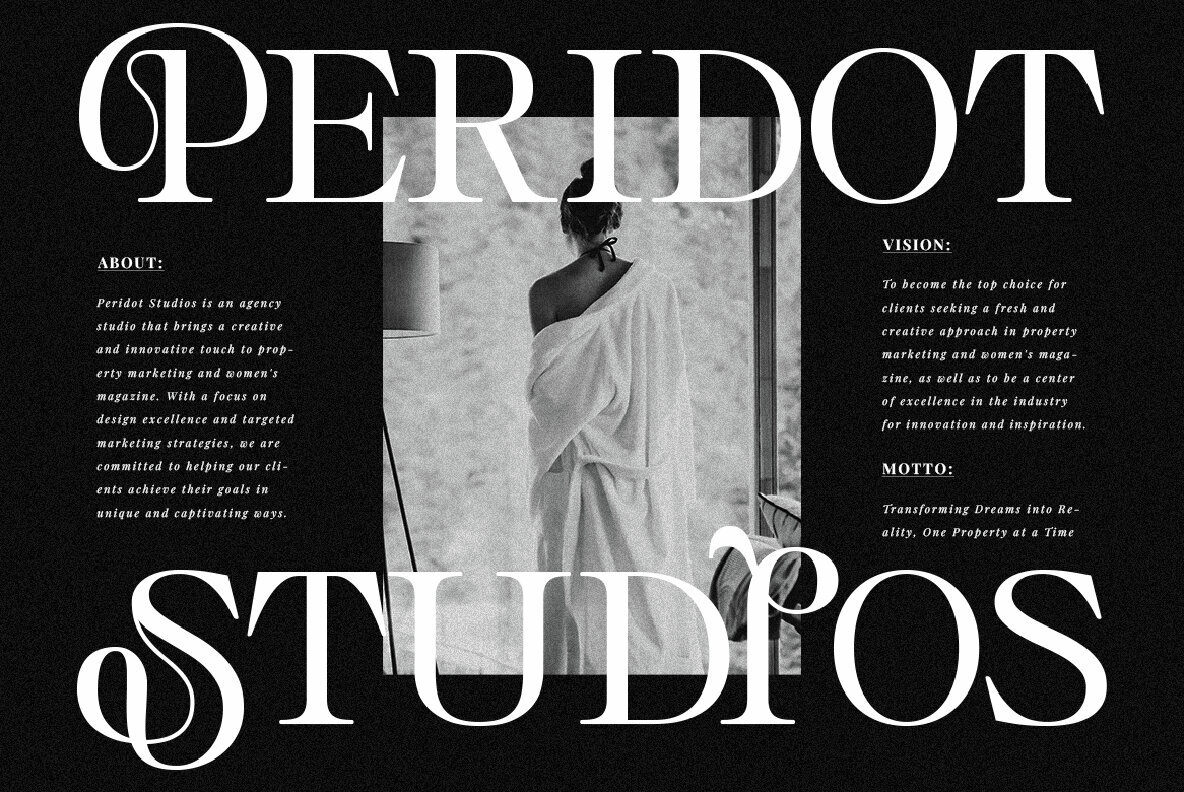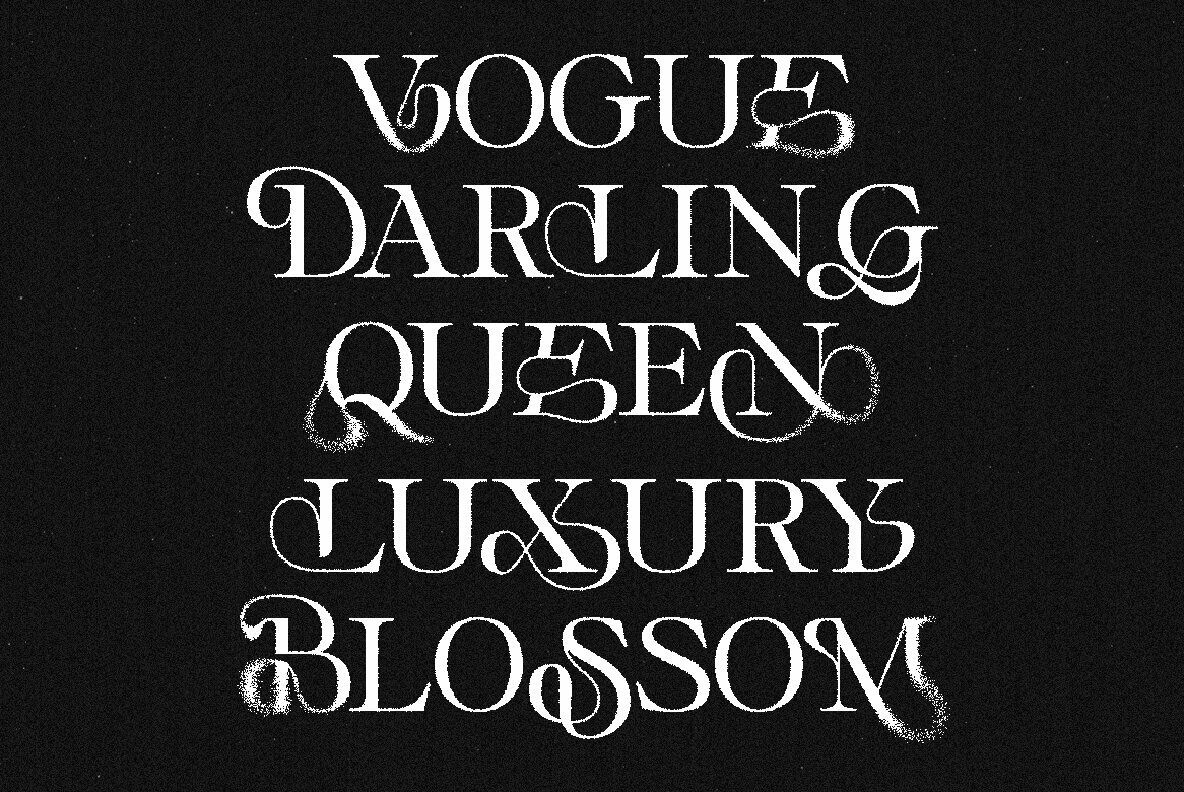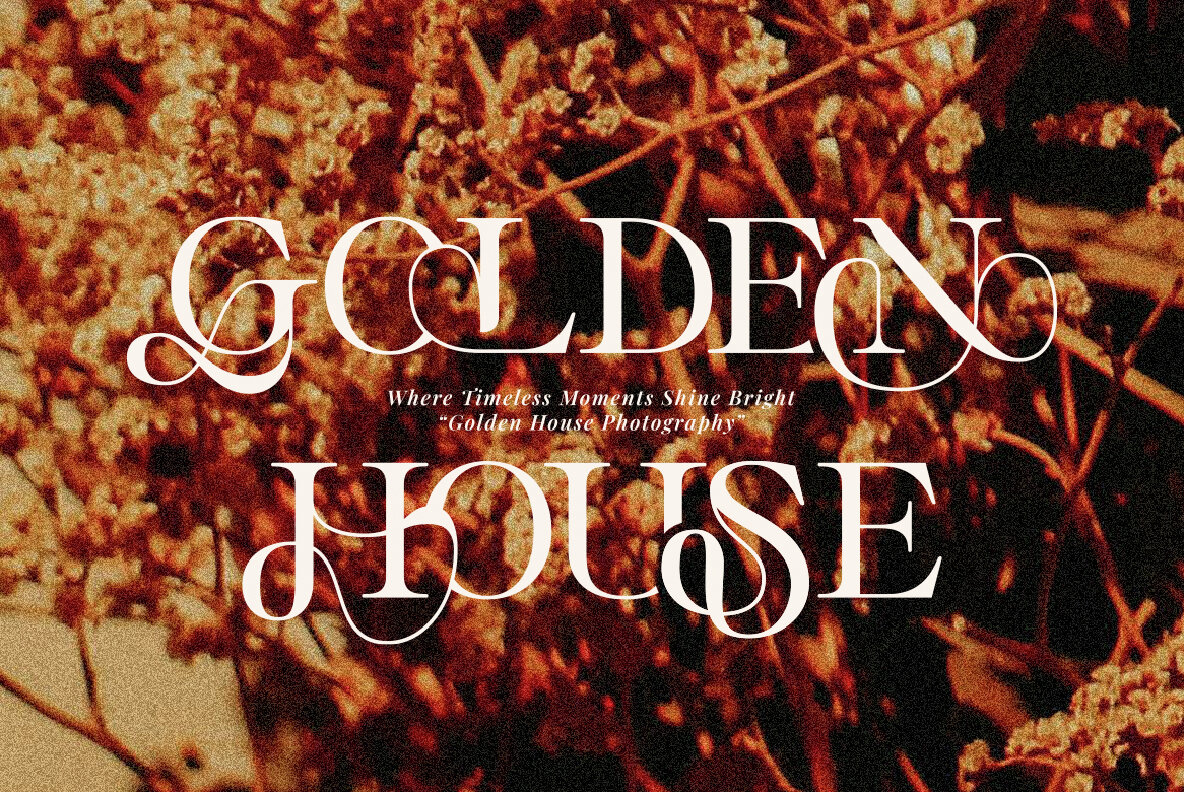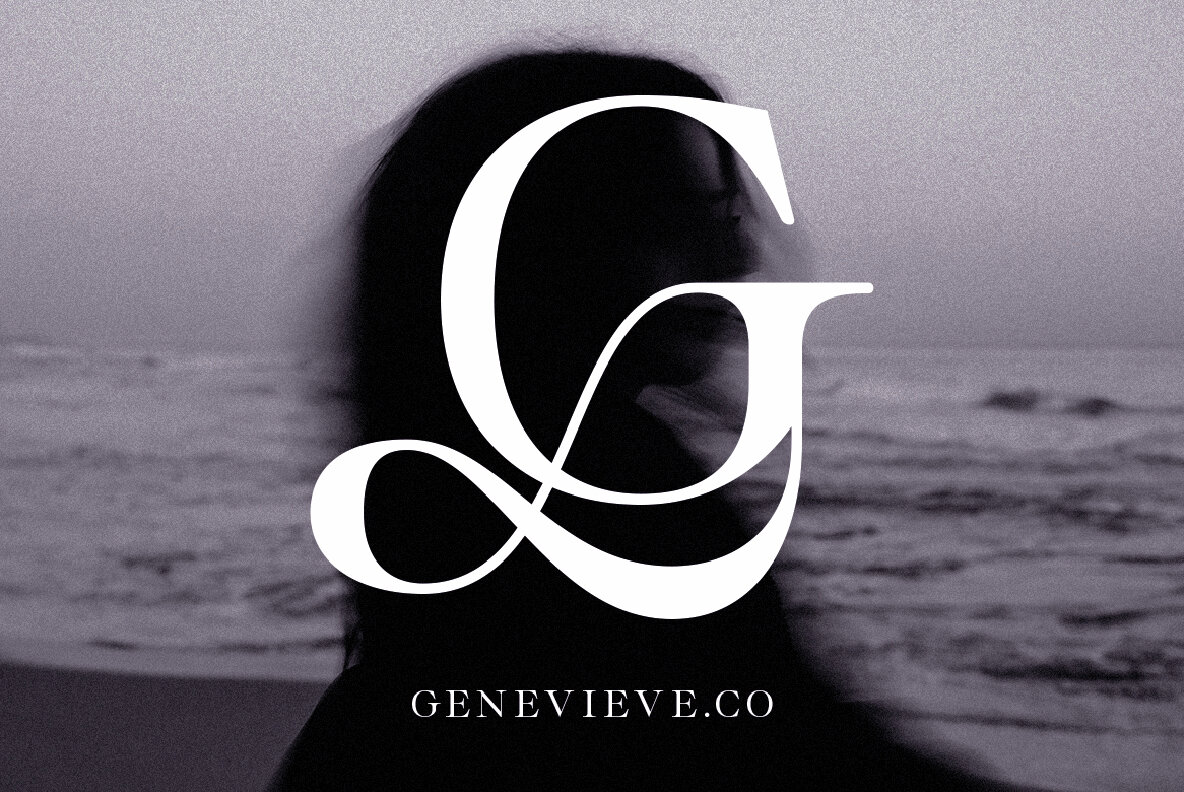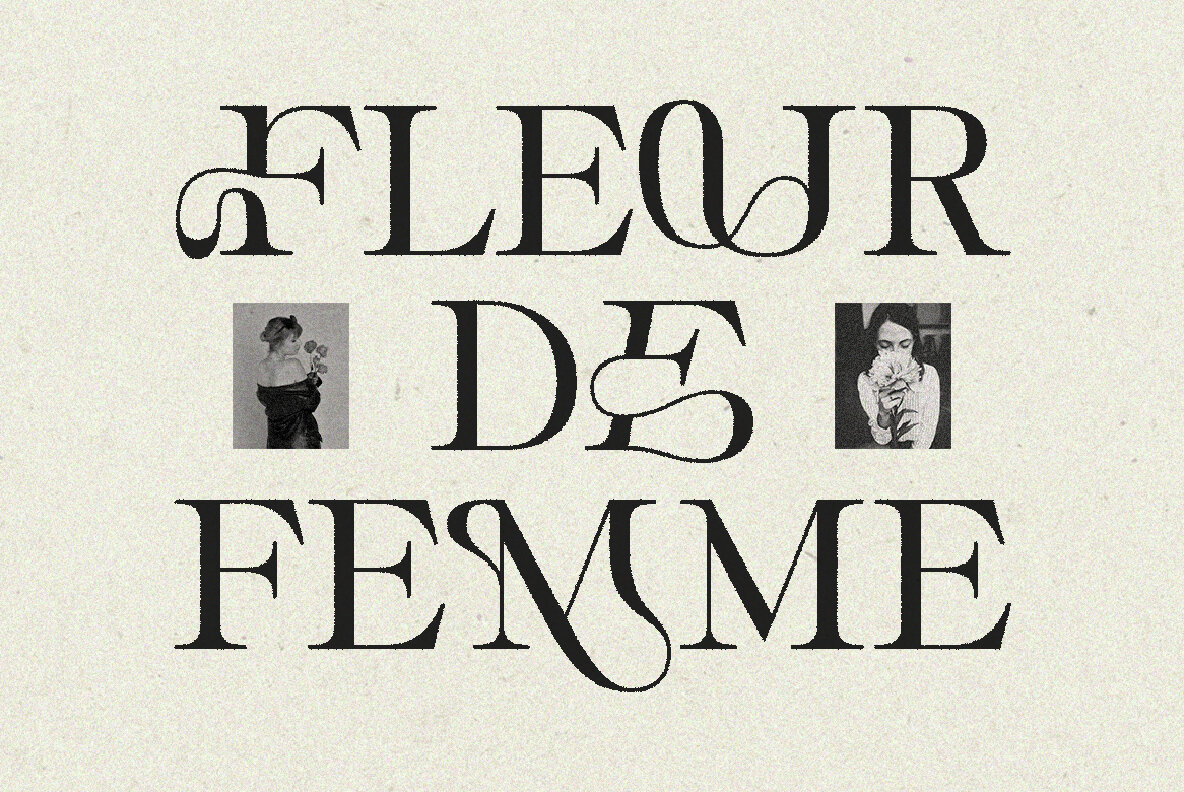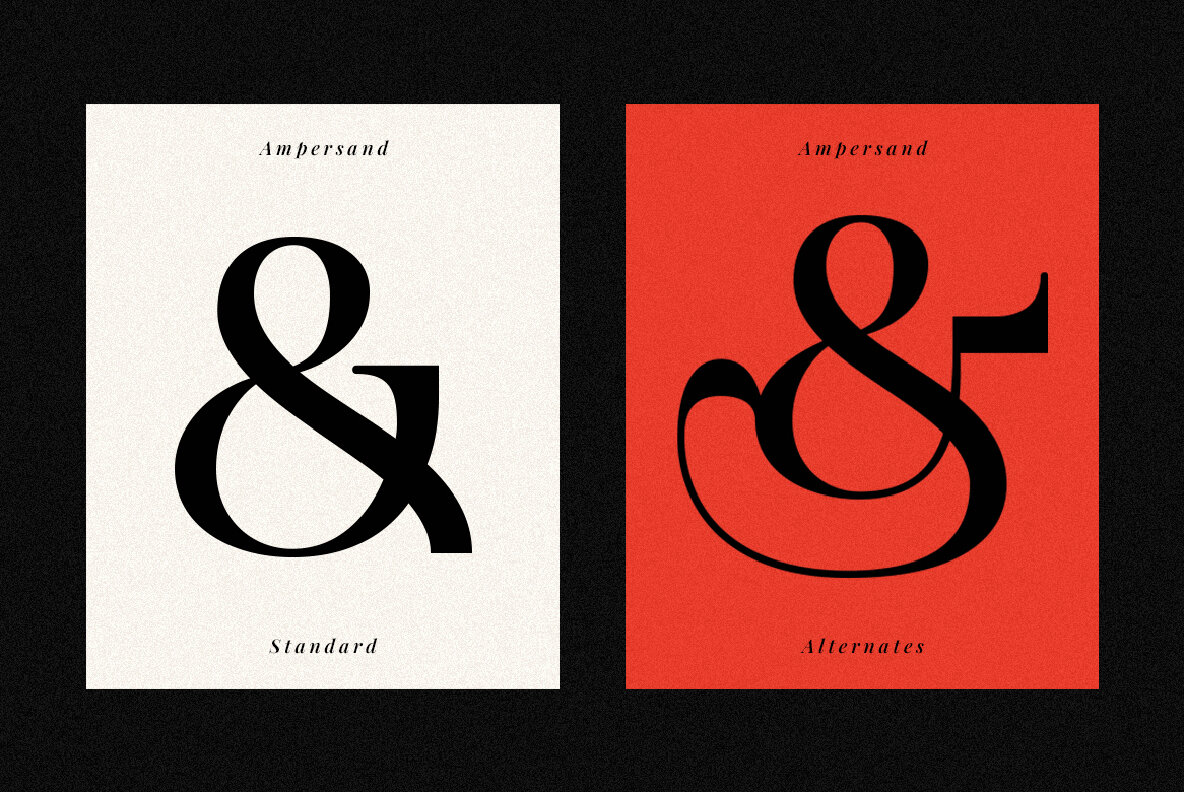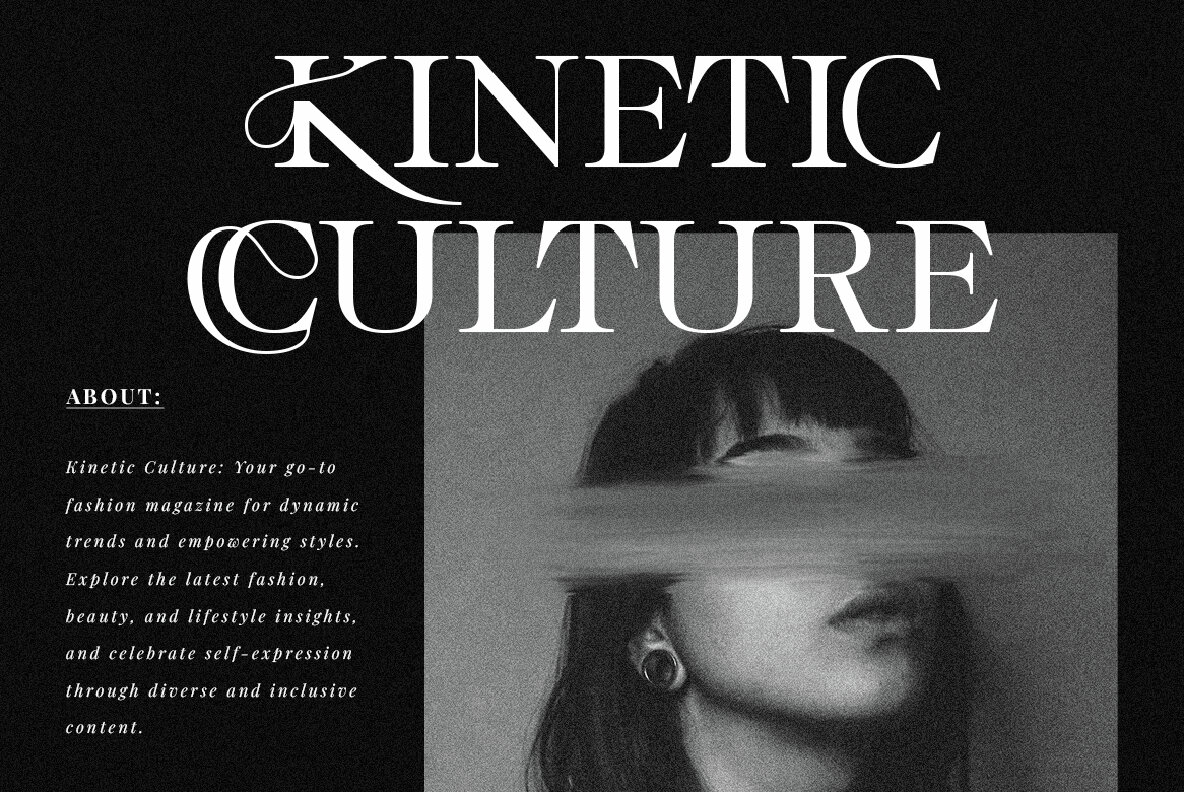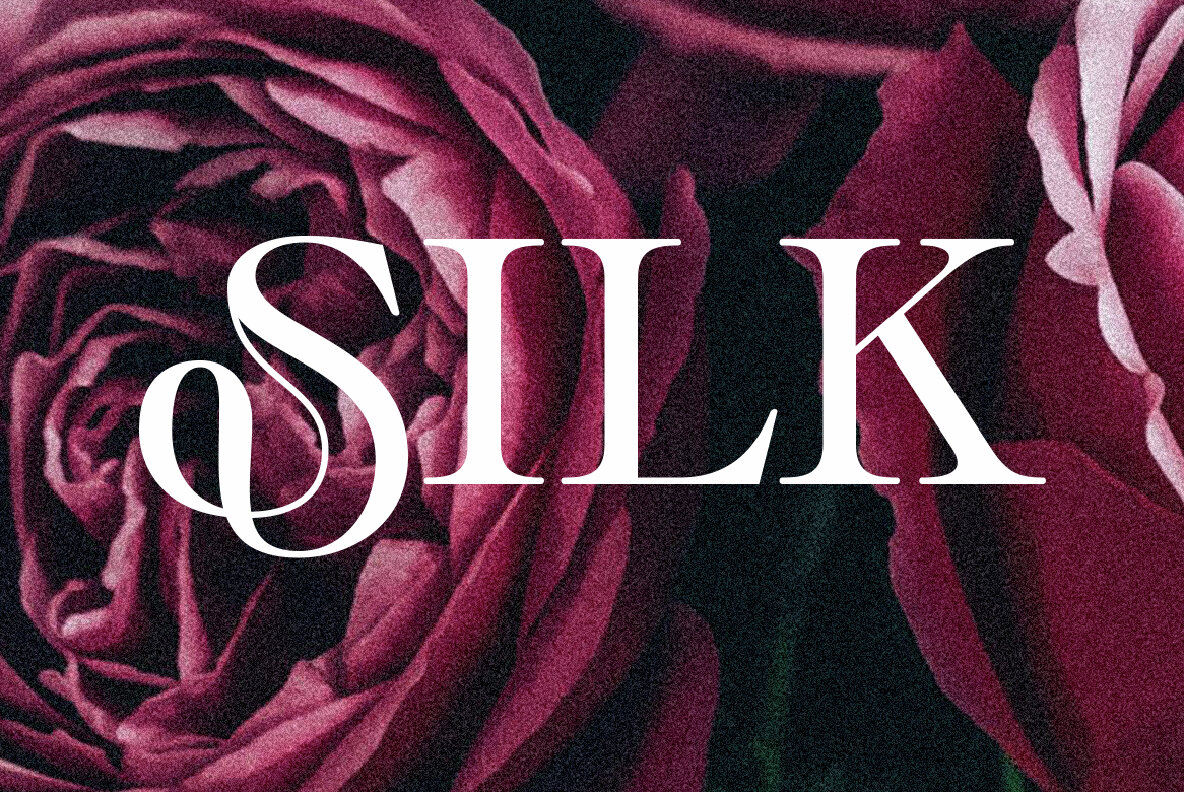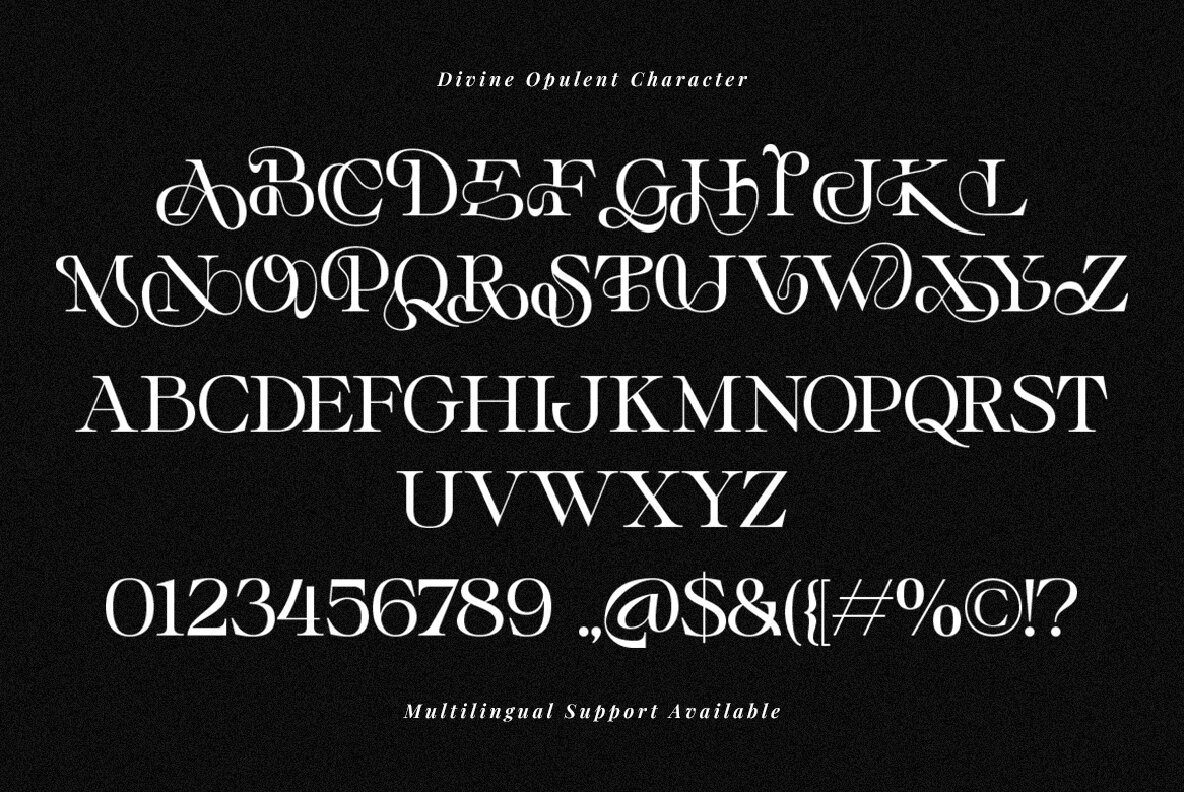
Divine Opulent Font
Divine Opulent Regular
Divine Opulent is a refined serif display font that ingeniously blends uppercase and lowercase letters to form a distinctive aesthetic. Ideal for posters, logos, and branding projects, it provides creative versatility. Features: Supports languages including Afrikaans, Albanian, Asu, Basque, Bemba, Bena, Breton, Catalan, Chiga, Cornish, Danish, Dutch, English, Estonian, Filipino, Finnish, French, Friulian, Galician, German, Gusii, Indonesian, Irish, Italian, Kabuverdianu, Kalenjin, Kinyarwanda, Luo, Luxembourgish, Luyia, Machame, Makhuwa-Meetto, Makonde, Malagasy, Manx, Morisyen, North Ndebele, Norwegian Bokmål, Norwegian Nynorsk, Nyankole, Oromo, Portuguese, Quechua, Romansh, Rombo, Rundi, Rwa, Samburu, Sango, Sangu, Scottish Gaelic, Sena, Shambala, Shona, Soga, Somali, Spanish, Swahili, Swedish, Swiss German, Taita, Teso, Uzbek (Latin), Volapük, Vunjo, and Zulu.